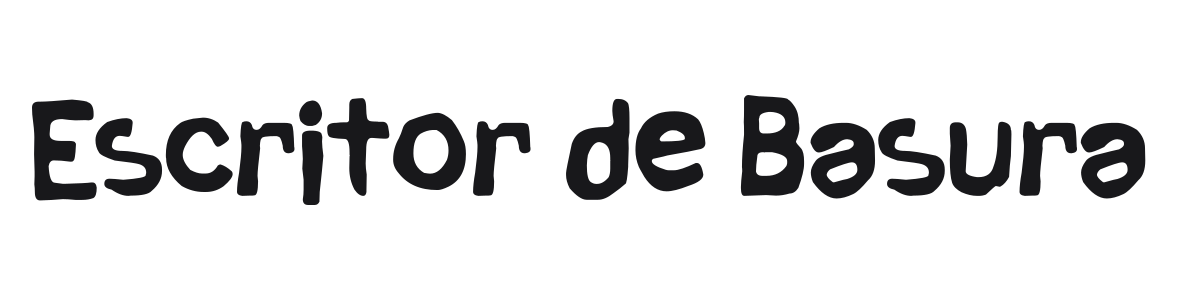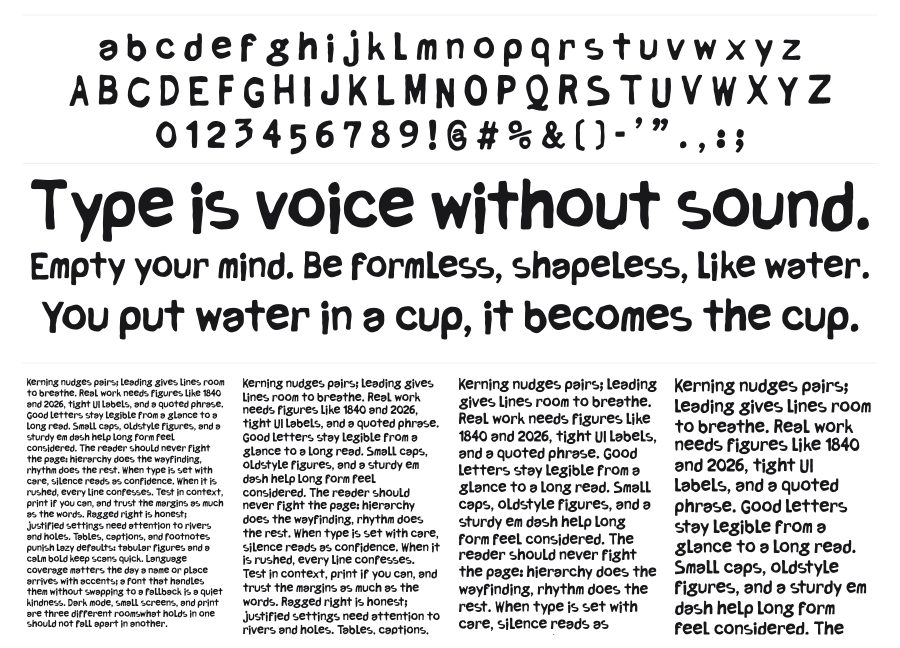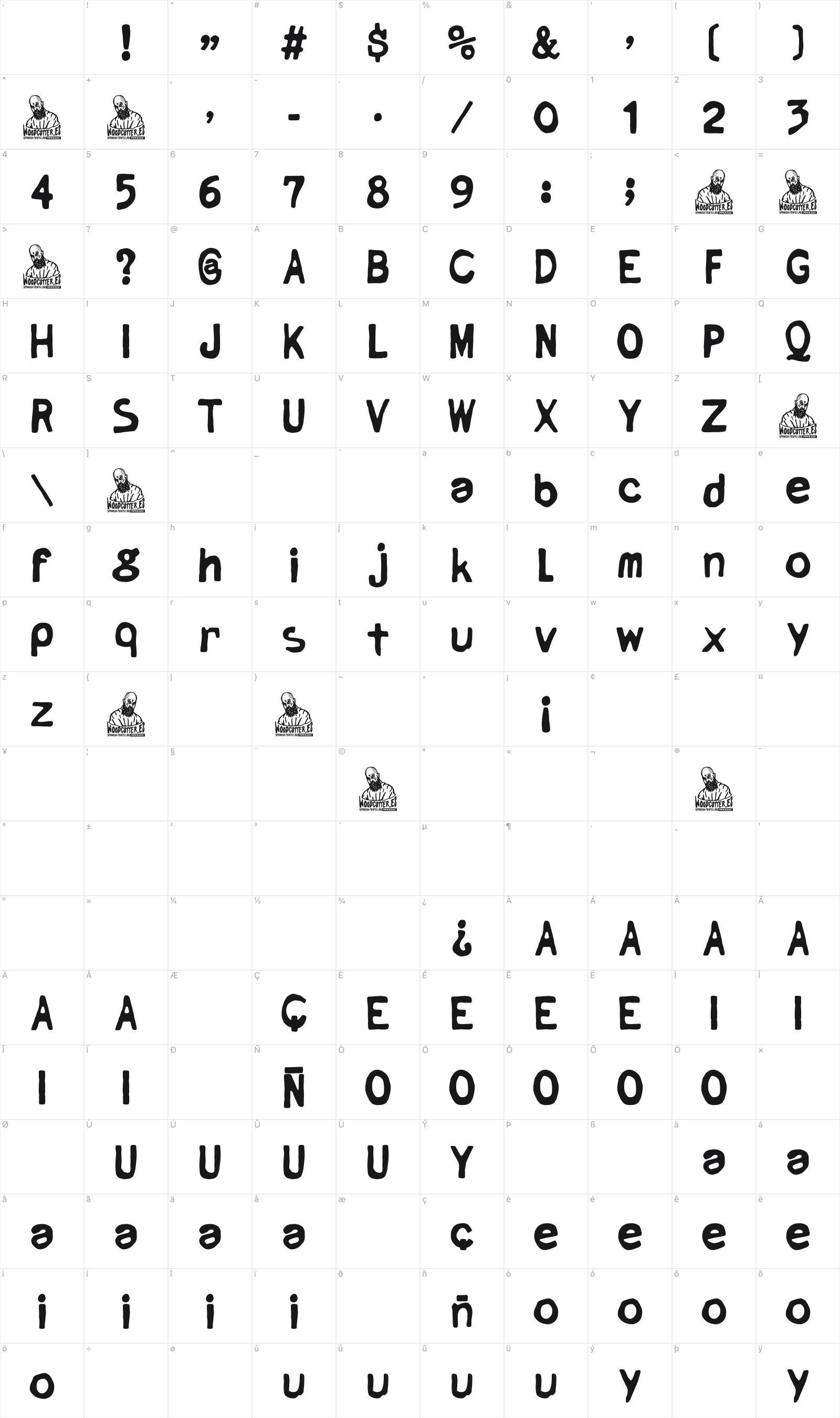
Escritor de Basura
Escritor de Basura is a bold, hand-drawn casual font by Woodcutter Manero with chunky rounded strokes and deliberate organic irregularity. Each character feels like it was written quickly with a thick marker, with subtle wobbles in size and alignment that keep the texture lively. It works best large, for posters, labels, and anything that needs a rough, spontaneous edge.